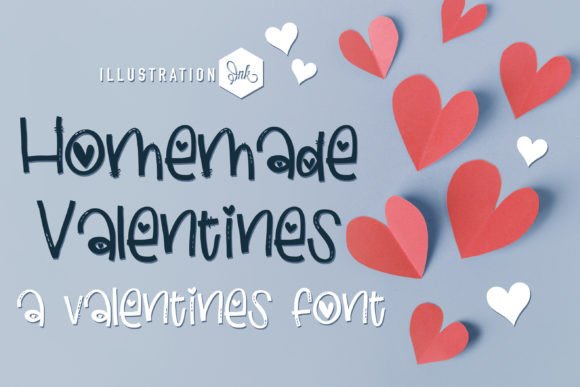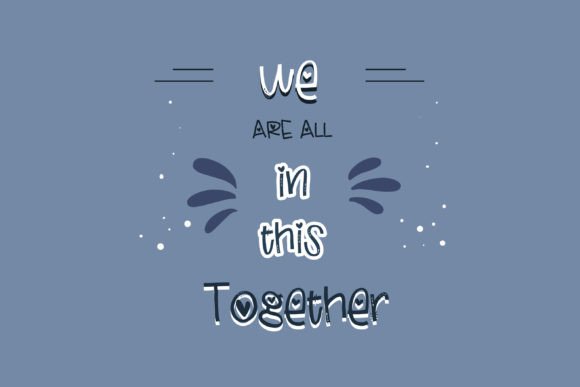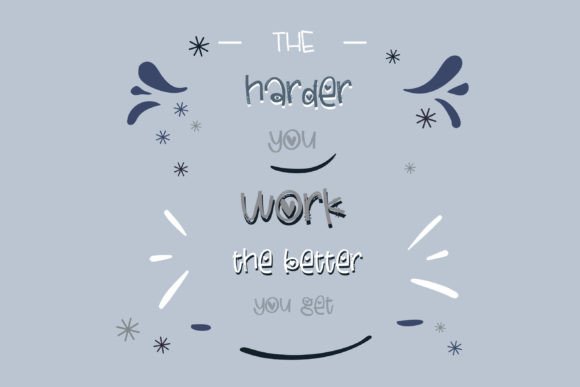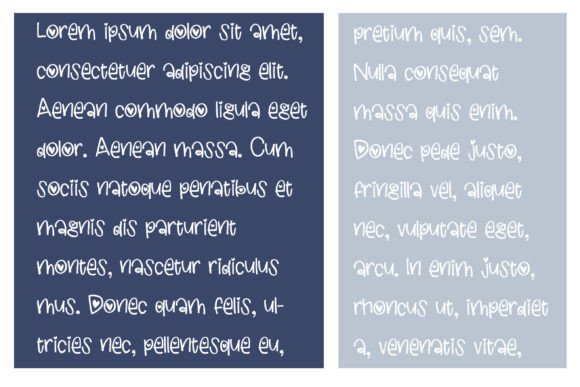
Homemade Valentine Font
About the Homemade Valentine Font
The Homemade Valentine Font is here to transform your projects with its distinctive character and style. This hand-crafted sans serif font features hearts and stitches. No matter the topic, this font will be an incredible asset to your fonts’ library, as it has the potential to elevate any creation.
Its playful, hand-crafted nature makes it ideal for projects requiring a touch of whimsy and warmth. Consider using it for children’s books, Valentine’s Day designs, branding for artisan businesses, or short, impactful headlines on social media. Avoid using it for large blocks of body text or UI elements where readability is paramount; the unique characters may hinder legibility.
Pairing it with a clean sans-serif like Open Sans for body text provides a strong contrast and maintains readability. For a more sophisticated feel, consider a classic serif such as Garamond. If a more playful pairing is desired, a rounded sans-serif like Bebas Neue could enhance the lightheartedness.
The overall personality is undeniably friendly and charming, conveying a sense of handmade authenticity. Its unique characters add a touch of personality without overwhelming the design.
Homemade Valentine Font Usage Examples
Homemade Valentine Font Example